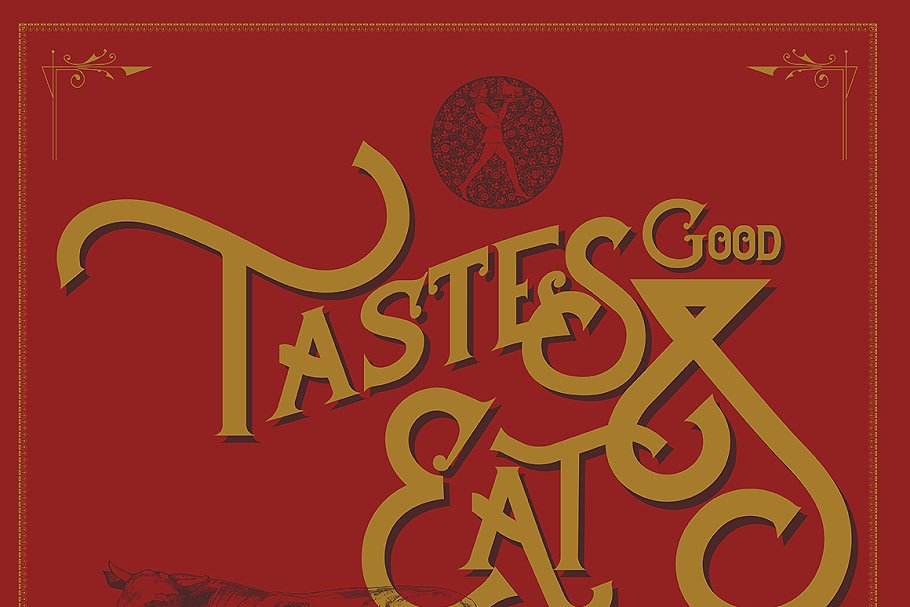
Introducing Celestial Fonts & Vintage Pattern - a handmade Victorian handlettering font family that combines modern and classic typography with some amazing features. Created by Ramandhani Nugraha, this font family is perfect for hand lettering and adds a classic touch to modern designs.
Celestial Typeface includes uppercase and lowercase letters, numerals & punctuations, old style tabular, vintage ornament, and multilingual characters with accents. It also includes Open Type features such as ligatures, contextual alternates, stylistic alternates, ss01, ss02, ss03, and old style tabular for numbering.
With more than 329 glyphs, including stylistic sets, ligatures, contextual alternates, and more, this font family allows for a Victorian look that's perfect for wine packaging, labeling, logos, classic shops, coffee shops, movie titles, and more. To access the alternate glyphs, you need a program that supports OpenType features such as Adobe Illustrator CS and Adobe Indesign.
But that's not all - Celestial Fonts & Vintage Pattern also comes with Celestial Pattern (Ai CC), Celestial brush (Ai CC), catchword, and outline decorative stroke (editable), making it a versatile and unique addition to your font collection.